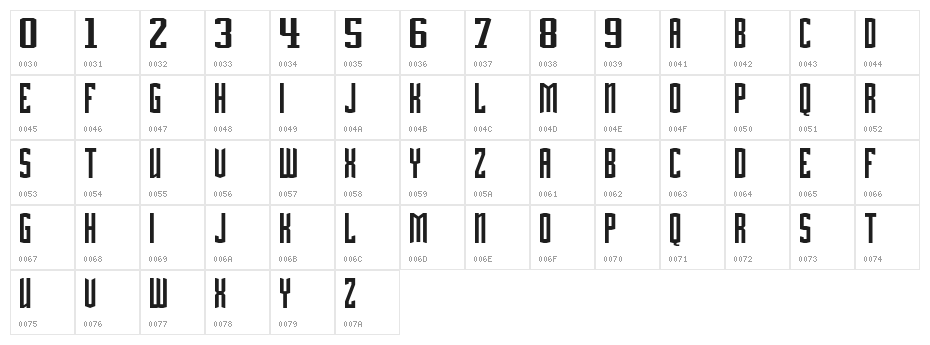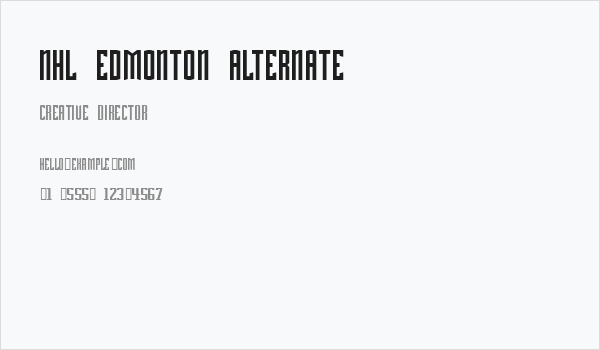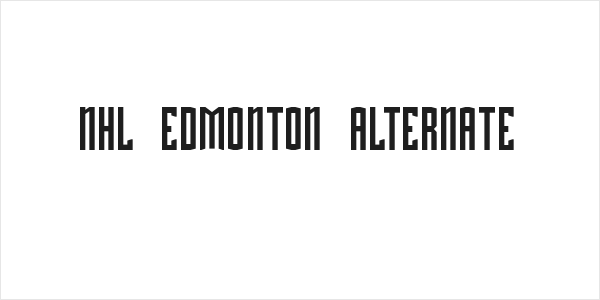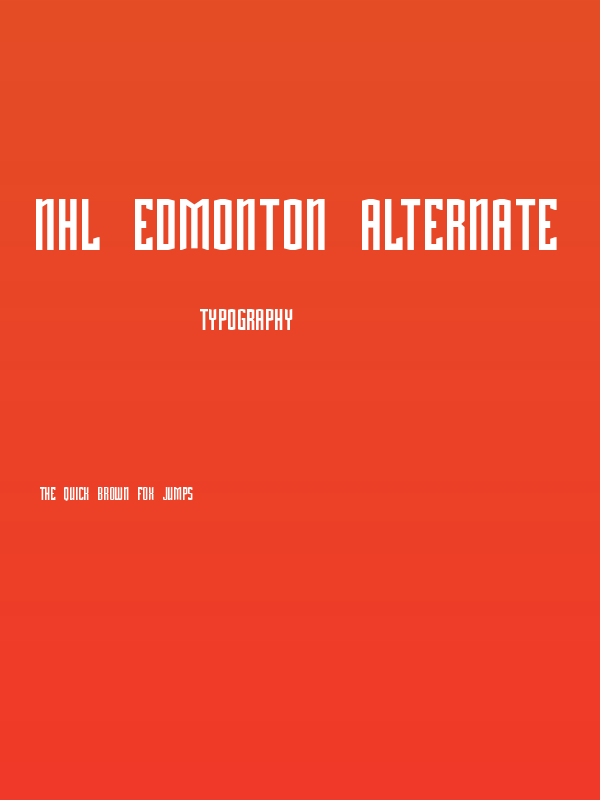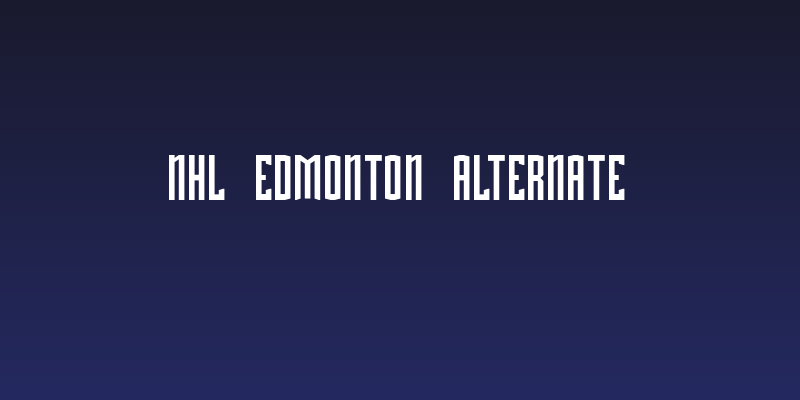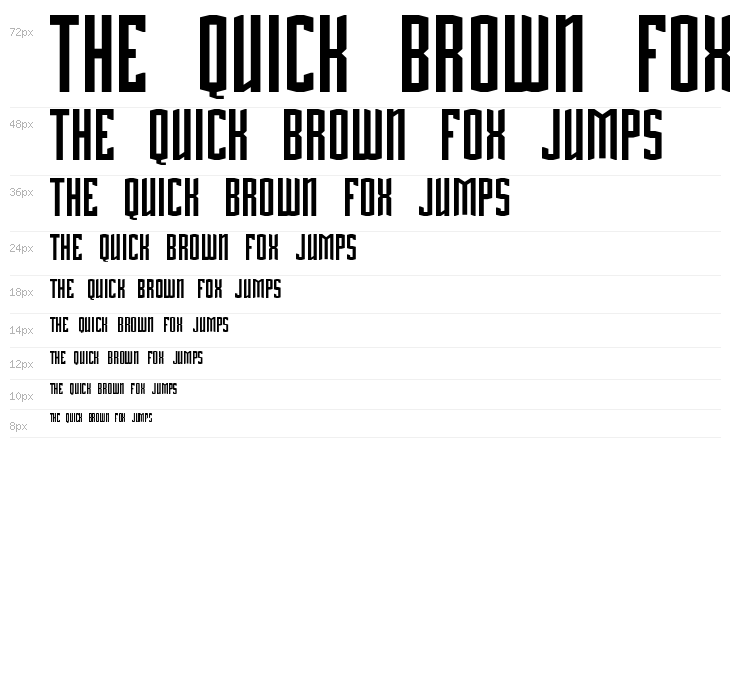
NHL Edmonton Alternate Font
NHL Edmonton Alternate Description
This font features a bold and geometric design with sharp angles and a strong presence. The uppercase letters are tall and narrow, giving a condensed appearance, while the numbers maintain a consistent height with the letters, ensuring uniformity. The strokes are thick, providing high contrast and making the characters stand out prominently. The overall style is modern and assertive, suitable for making a strong visual impact.
| Proposed Projects | Ideal for sports team branding, posters, and merchandise that require a bold and impactful look. |